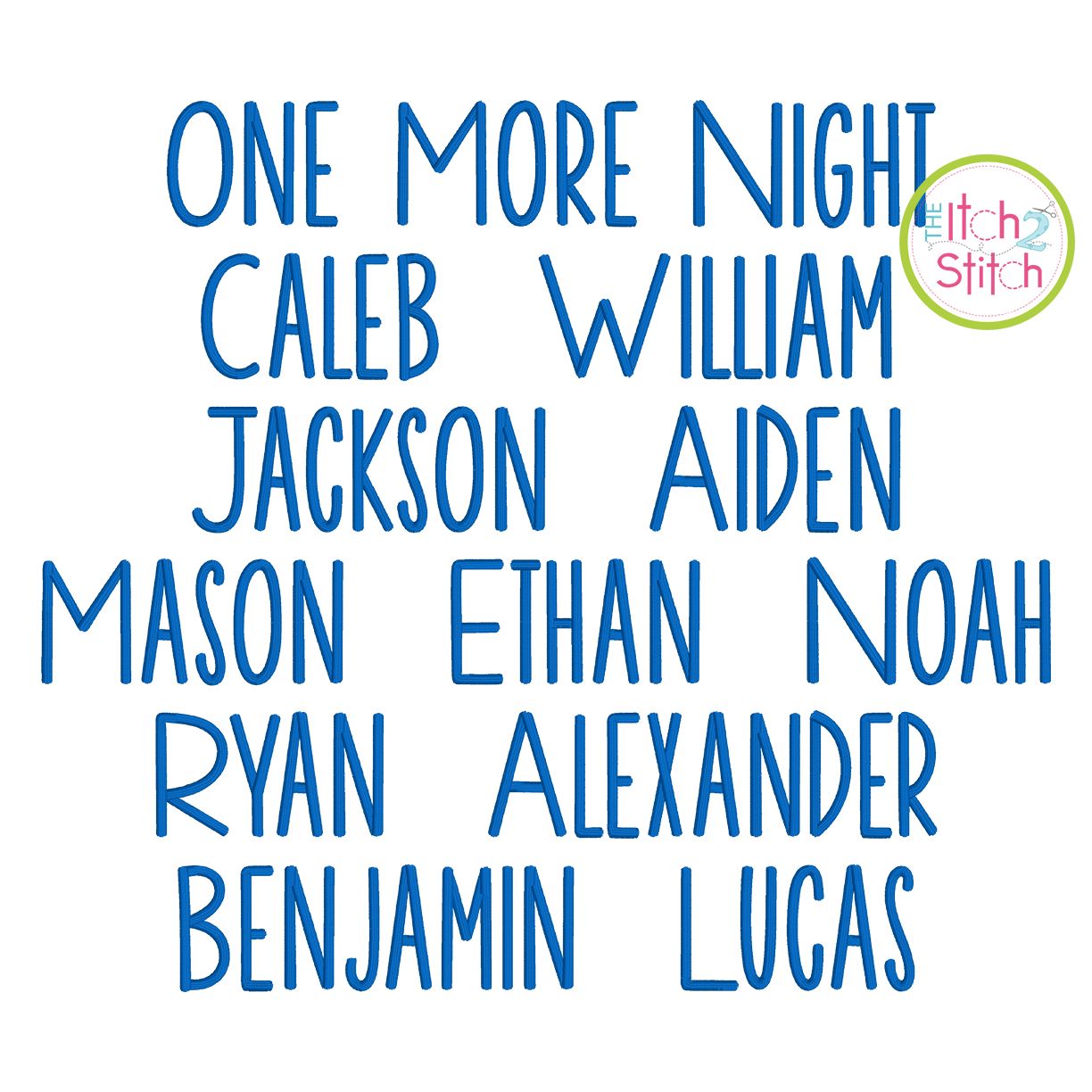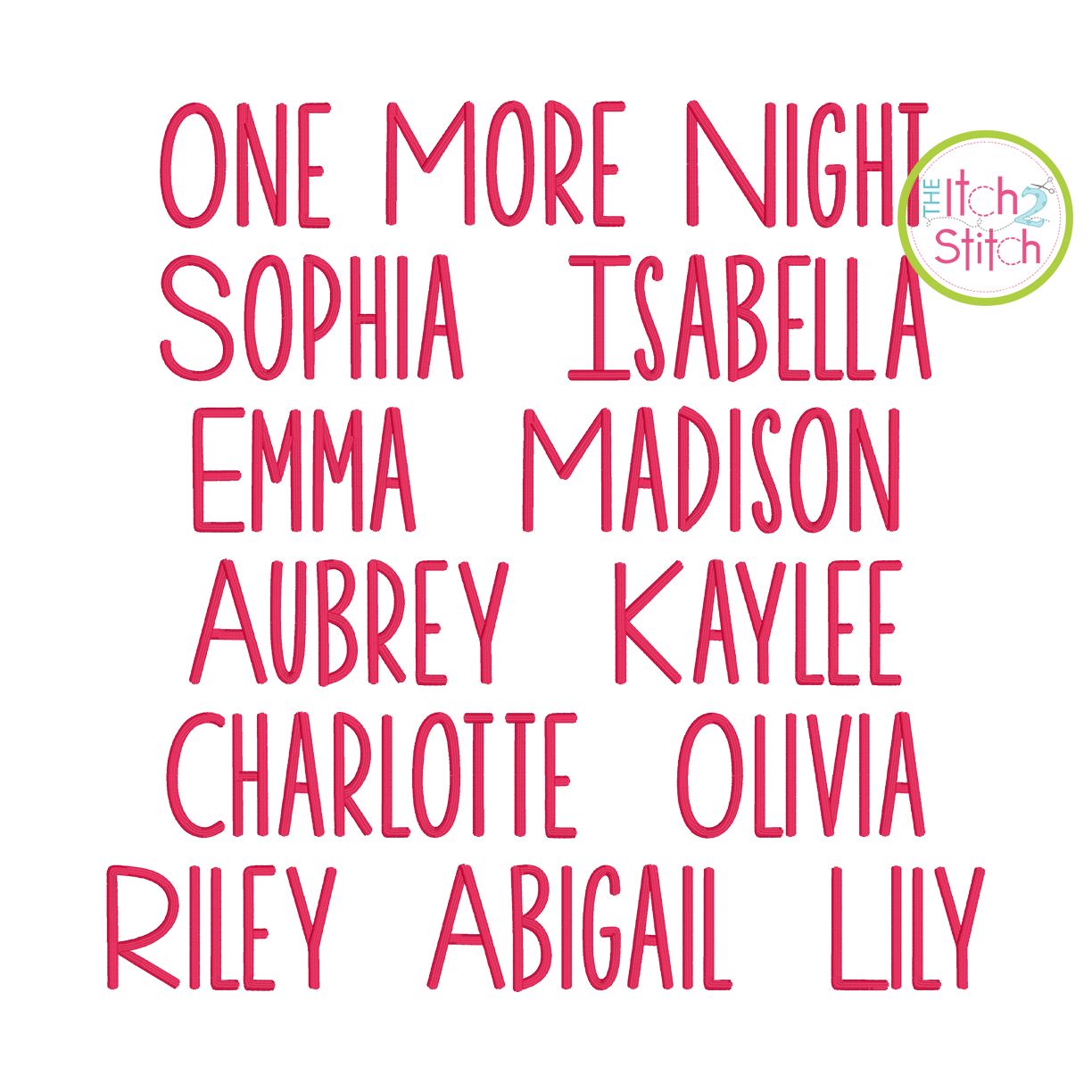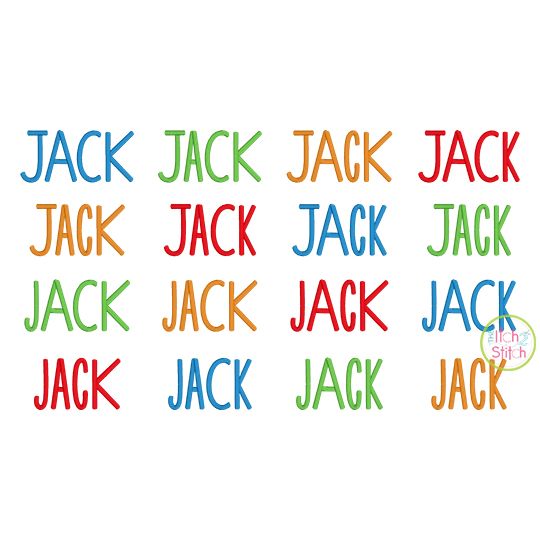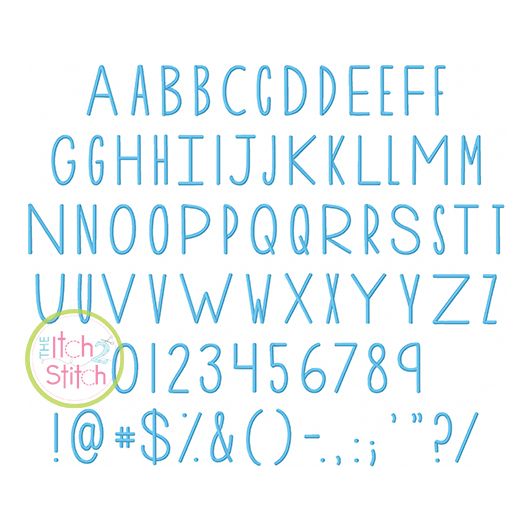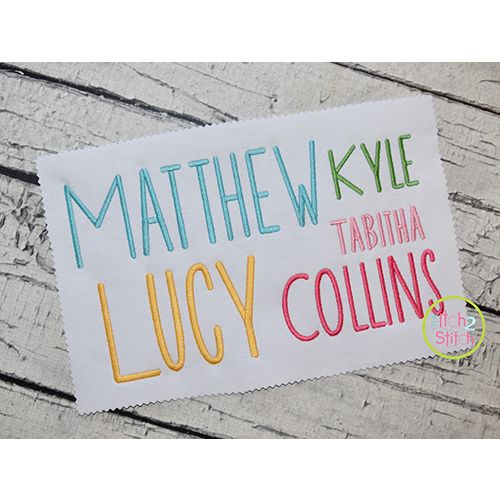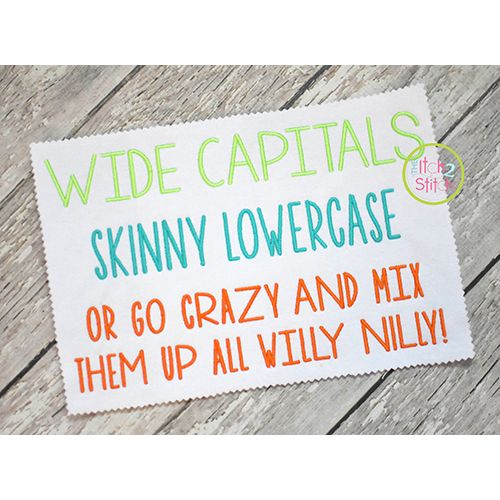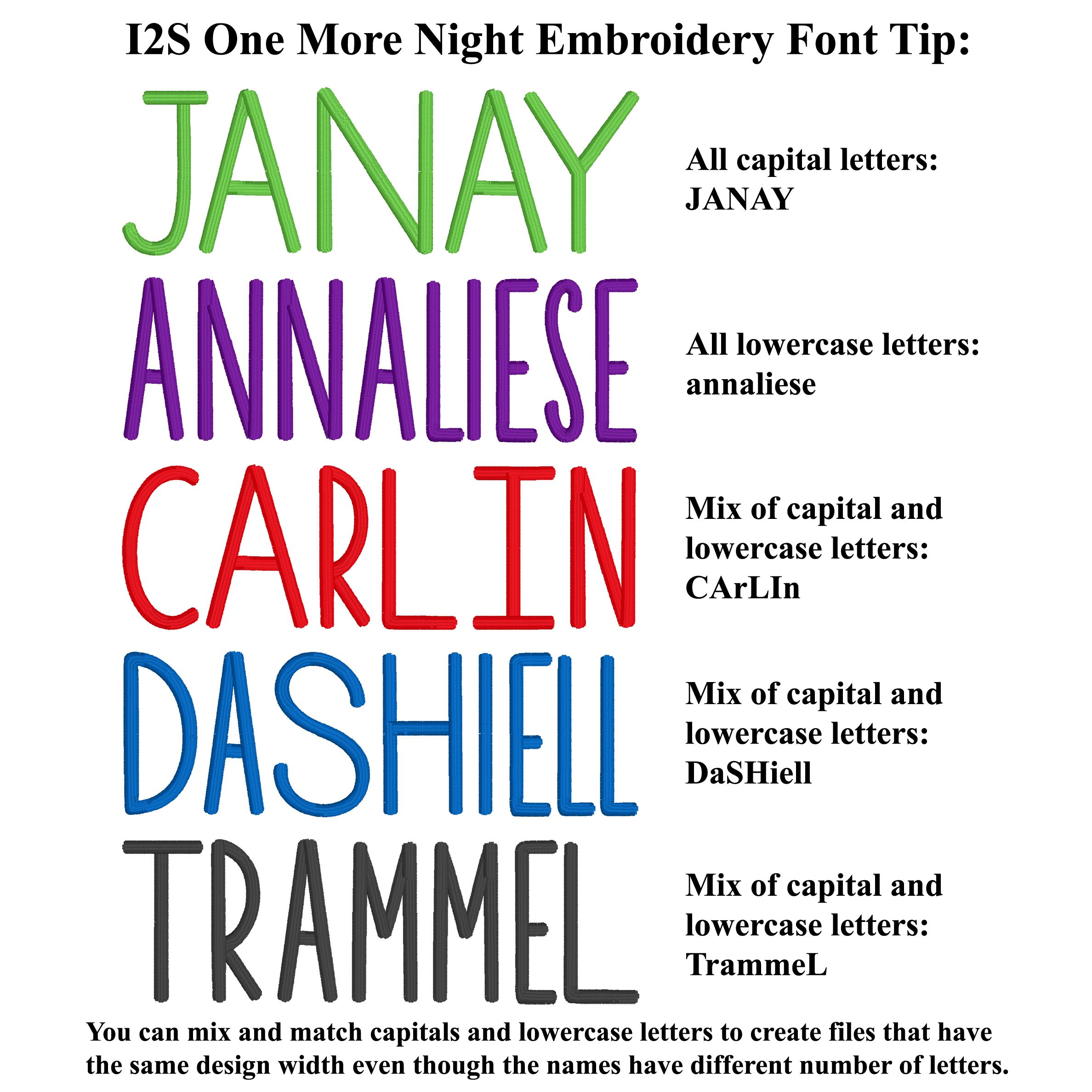
One More Night Satin Stitch Embroidery Font
In this all-caps unicase font, the "capital" letter is wide and the "lowercase" letter is narrow, as pictured. You will receive all Aa-Zz letters, numbers and partial punctuation (79 files) in seven sizes.